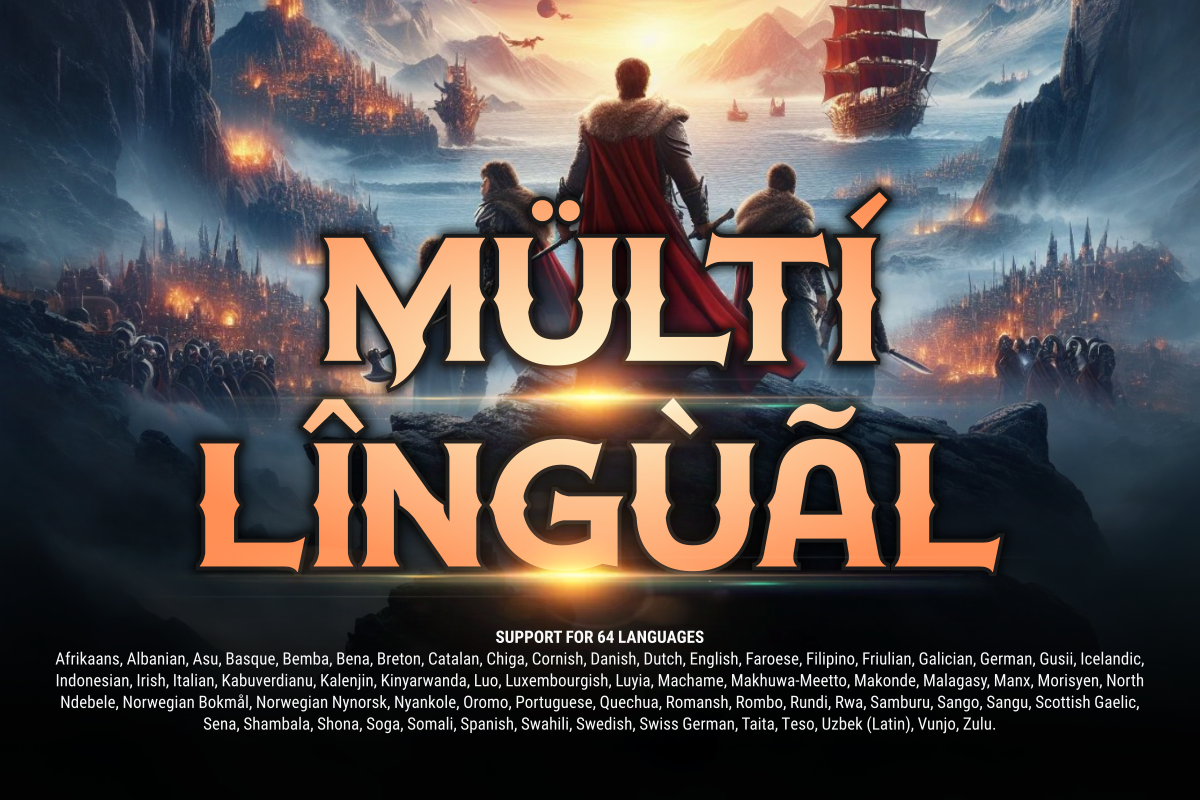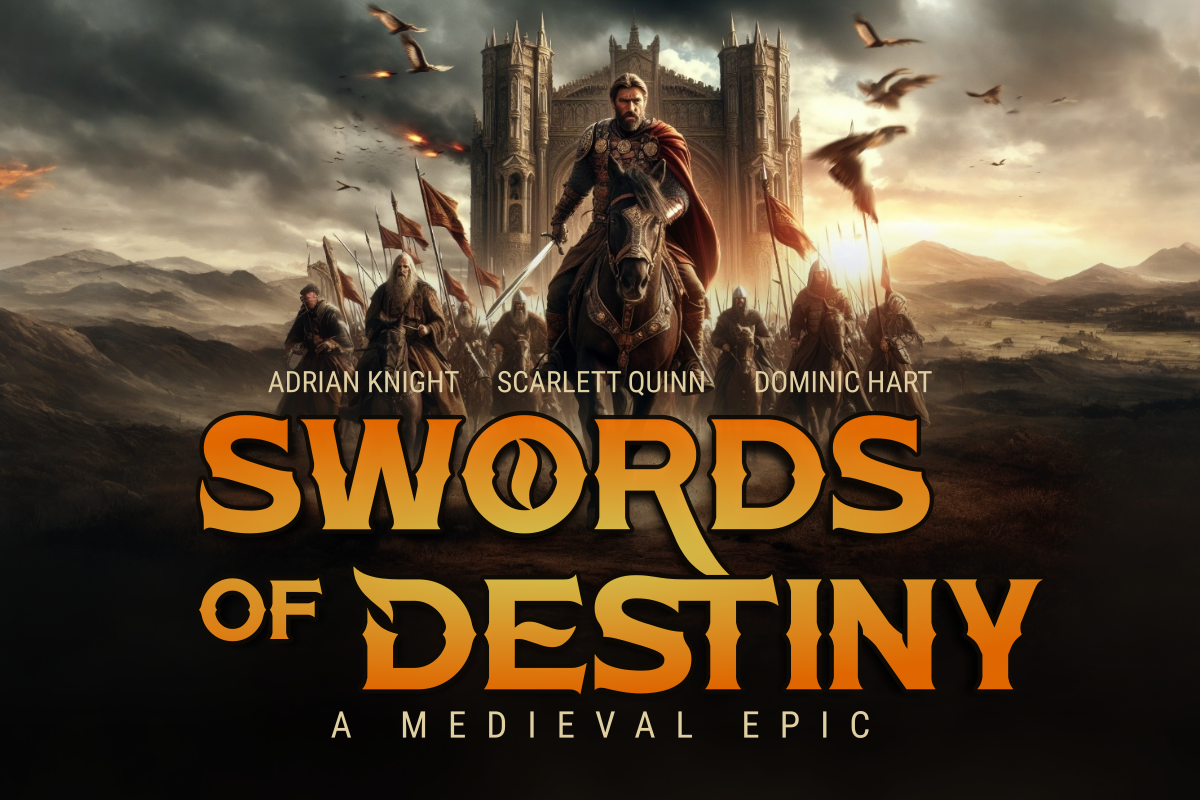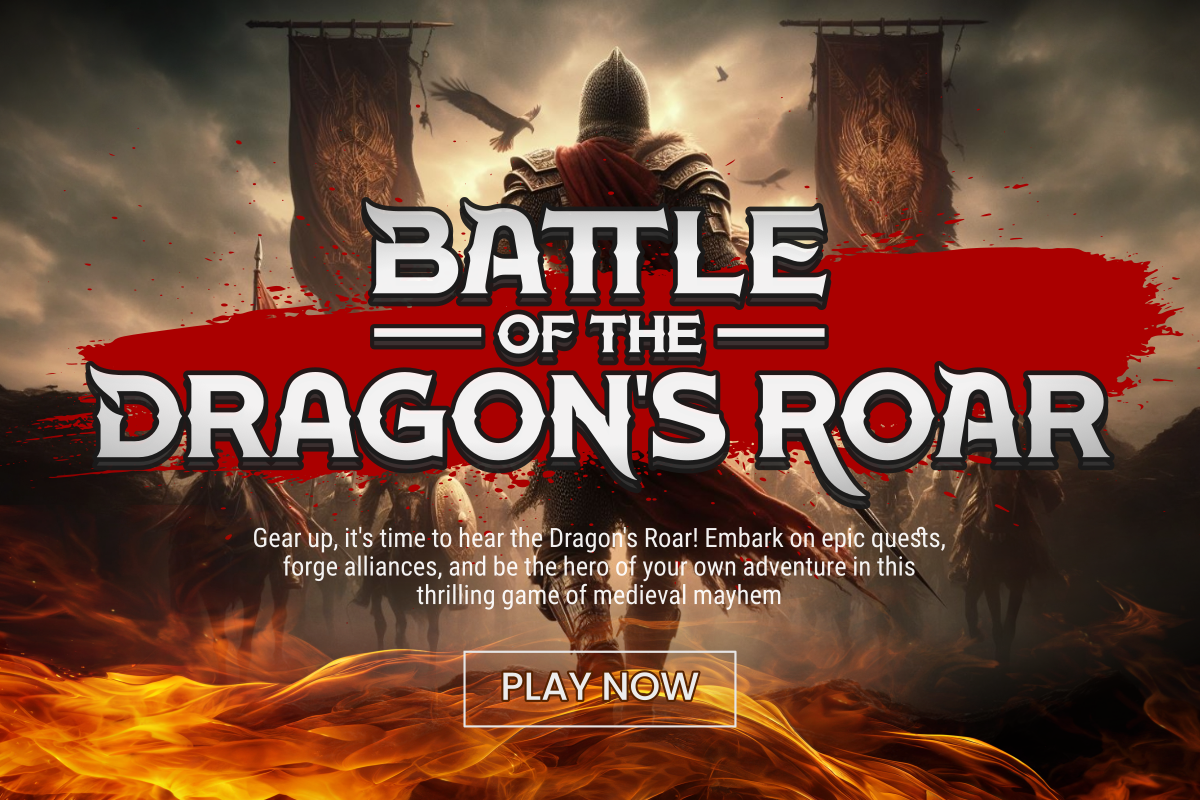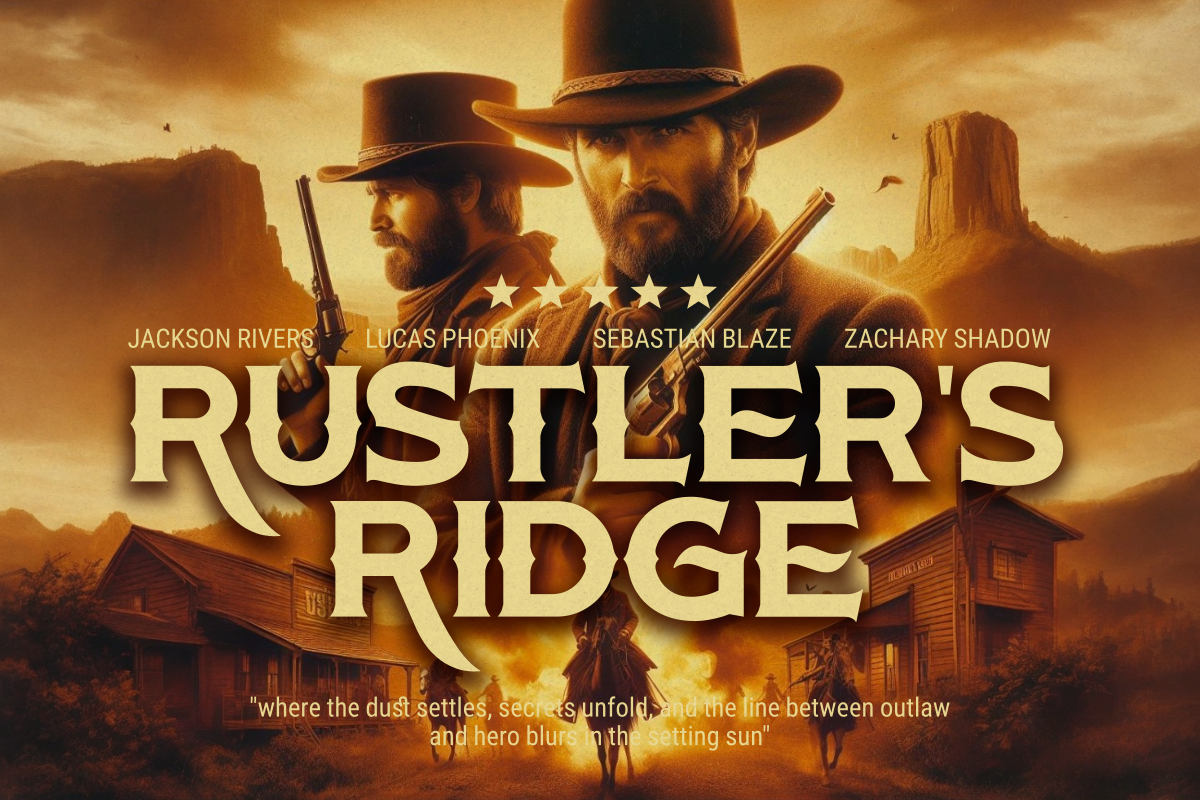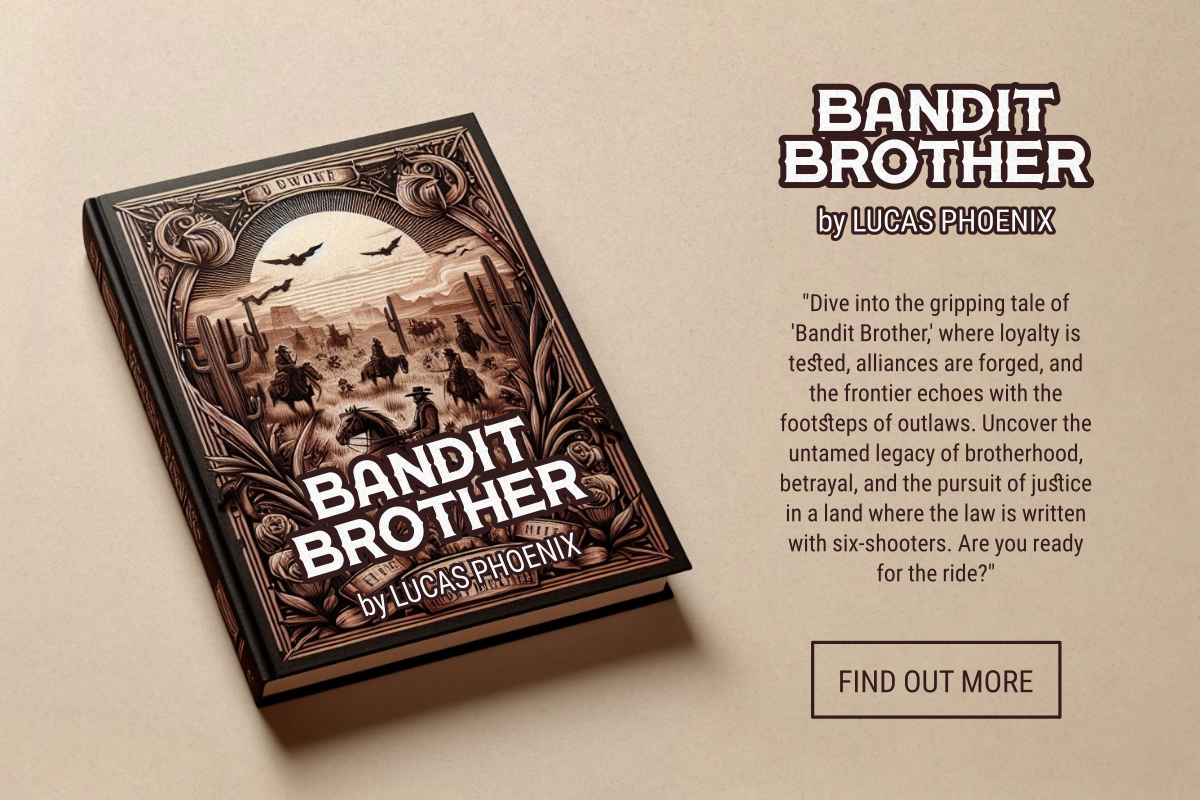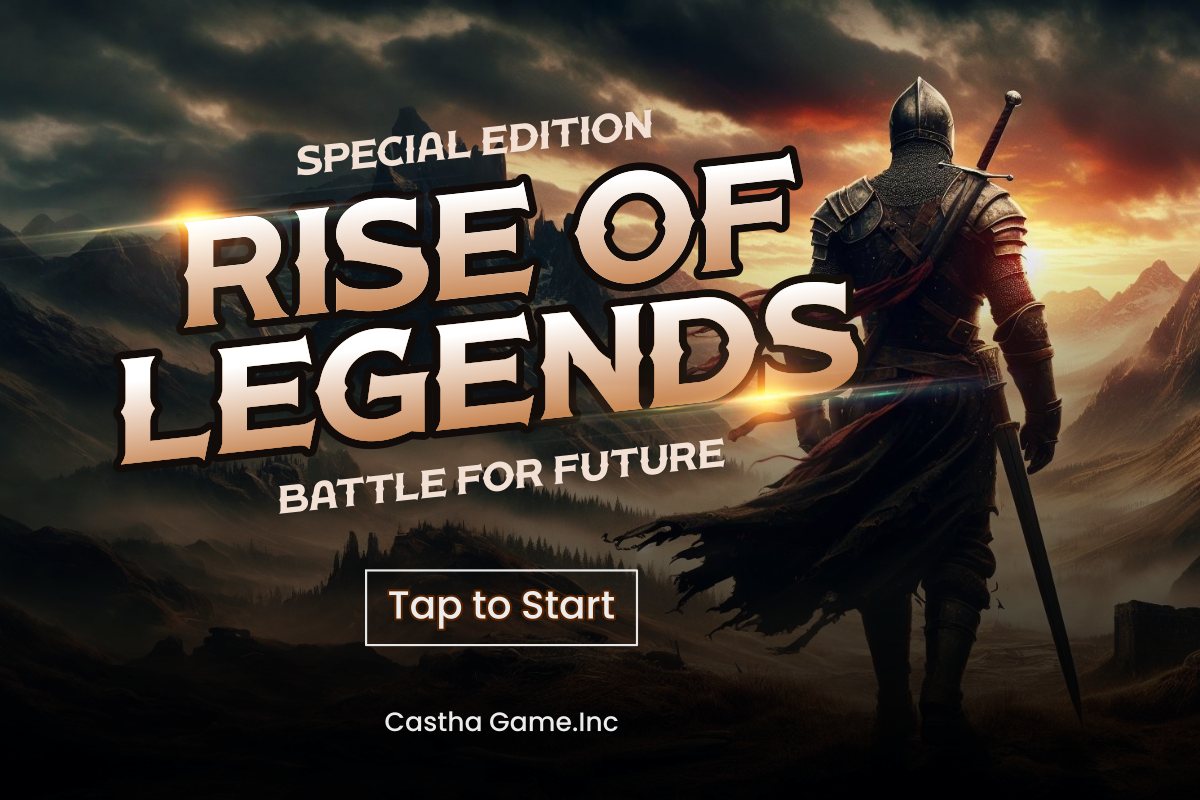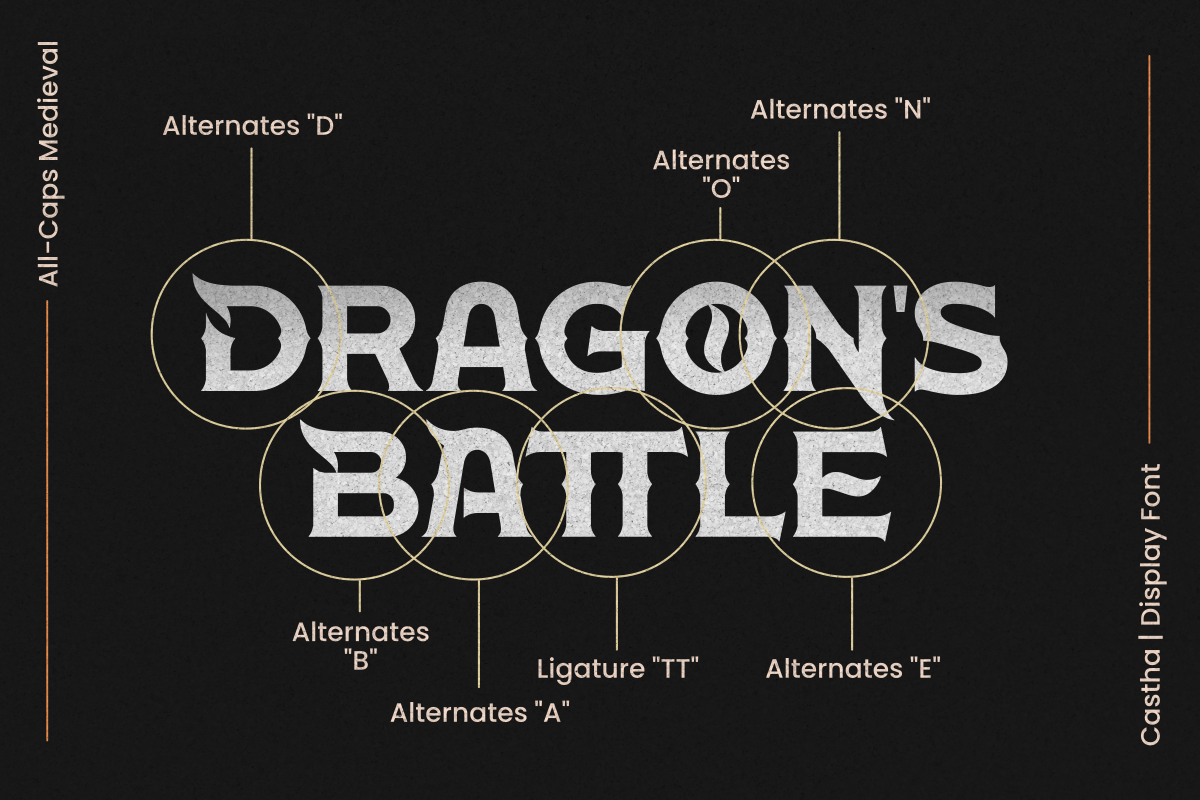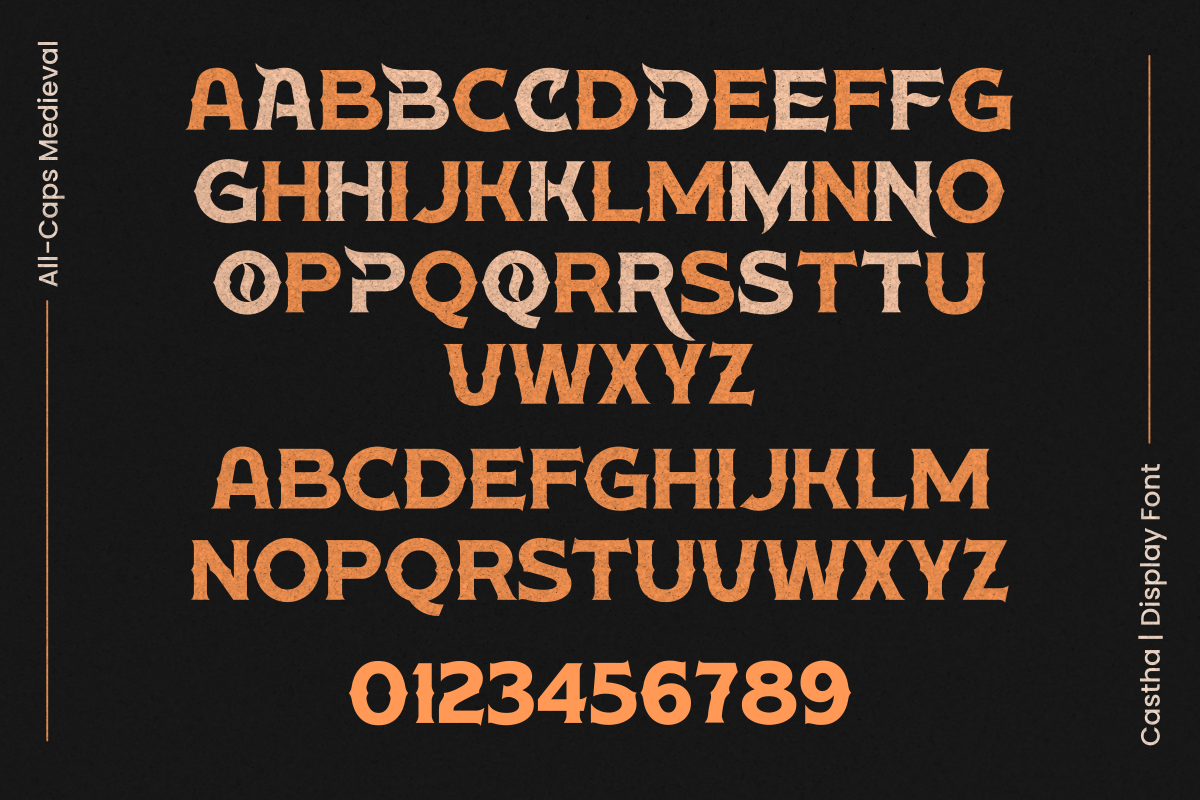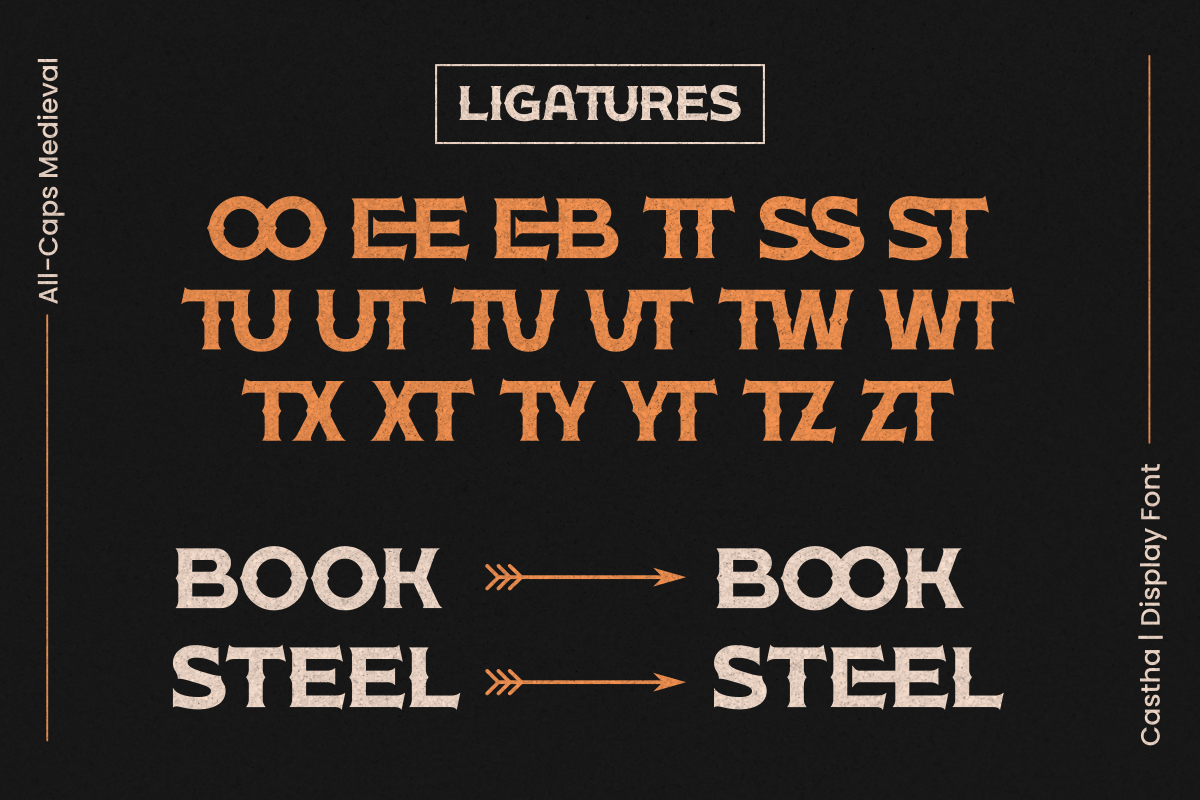
Castha Classy Display Font provides a new look that is different from the general fonts. This font is a serif font that is modern, simple, and elegant. It can also be used as a bold and modern font. Castha Classy Display Font has many matches when combined with the product to be used. Fashion brand tags such as clothing will work well with this typeface. There is no need to add excessive pictures and ornaments because the Castha Classy Display Font has presented its identity where a simple yet elegant impression radiates. Castha Classy Display Font is a typeface that can be used as digital fonts and print fonts. This font can be used as a title that appears first in intro videos that catch the viewer's attention at a first impression. Posters and magazine cover work especially well when using the Lobots Castha Classy Display Font. This is because even though this font is a serif typeface, it can be seen clearly and can be distinguished by each letter. So this font is included in legible fonts. Our Dsiplay fonts collection is compatible for use as; Figma Fonts, Canva Fonts, Freepik Fonts, and Adobe Fonts. They also work as Windows Fonts and Apple Fonts. For your social media needs, you can use and install fonts in our Serif font collection to use as Instagram Fonts, Facebook Fonts, and Twitter Fonts.